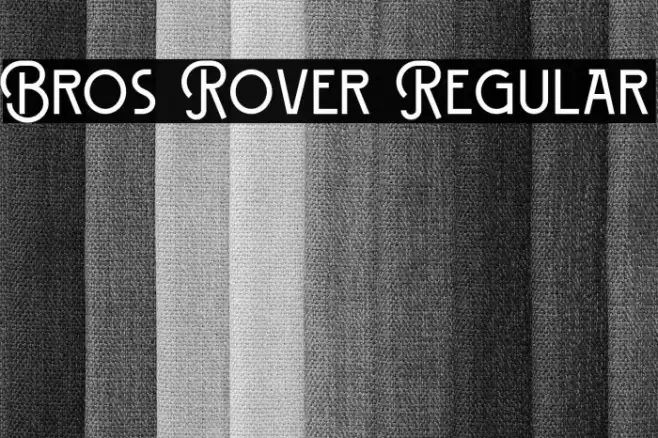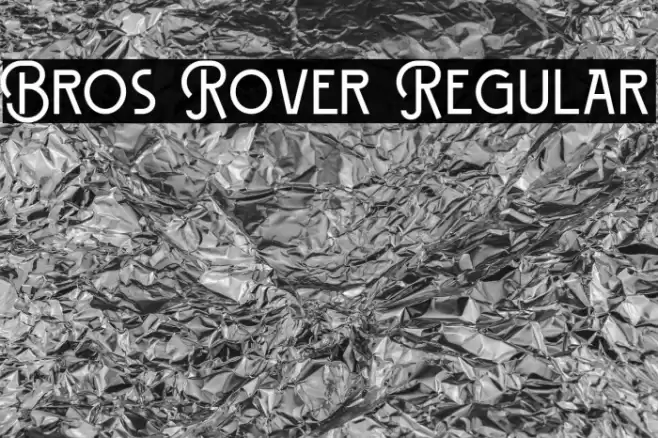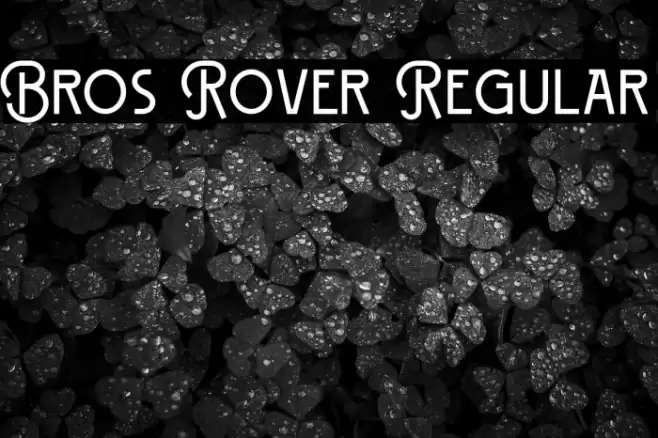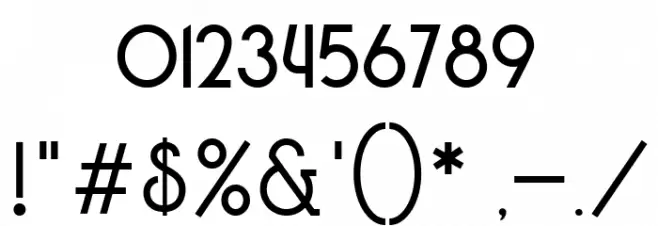
Bros Rover Regular Font
Bros Rover Regular Description
This font features a unique blend of modern and vintage elements, with a distinct decorative flair. The uppercase letters have a playful, almost whimsical quality, with subtle curves and flourishes that add character without overwhelming the design. The lowercase letters maintain a more straightforward, clean appearance, providing a nice balance to the overall aesthetic. The numerals are bold and clear, ensuring readability, while the special characters are designed with the same attention to detail, making them both functional and visually appealing. This font's versatility makes it suitable for a wide range of applications, from branding and advertising to editorial design.
A decorative font with a modern vintage style, featuring playful uppercase and clean lowercase letters from Regular fonts.
- Proposed Projects: Ideal for branding, advertising, editorial design, and creative projects requiring a distinctive yet readable typeface.
- Overall Style: Modern Vintage
- Use Case: Headlines, Logos, Branding